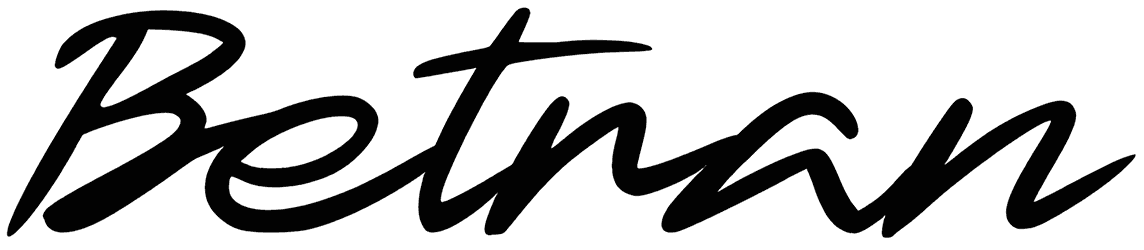
Betran Font
All graphic designers can save a lot of time and energy by using an 80s script font such as Betran in their artwork, including posters, branding, photo editing, stationery, and packaging. Also, it carries a sense of whimsical, precision, and personalization.
Due to its cursive design, reading the mixture of lowercase and uppercase letters of this handwritten font would be hard, but we offer you not to pay attention to this negligible deficiency and make an unimaginable outcome out of it.